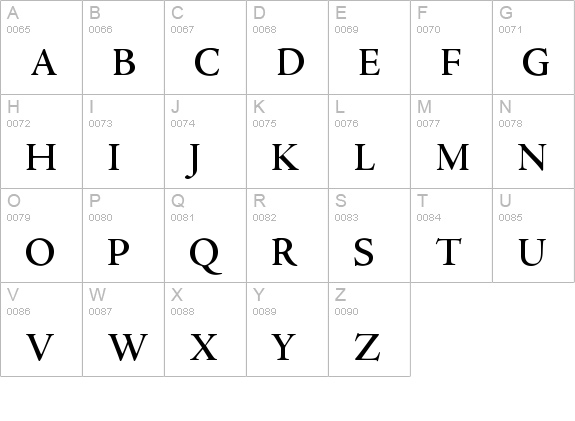
Adobe Jenson Pro Semibold Subhead Font Details
Adobe Jenson Pro Semibold Subhead is a sub-bold, structured variant in the Adobe typeface family \xE2\x80\x94 well suited to sub-headlines and emphasised passages.
Adobe Jenson Pro Semibold Subhead font is a bold and versatile typeface designed for attention-grabbing subheadings and titles. Its clean lines and strong presence make it perfect for emphasizing important information in your design projects. This font exudes a sense of sophistication and professionalism, making it ideal for editorial layouts, branding materials, and more. And the best part? Adobe Jenson Pro Semibold Subhead font is freely available to download at FontsMarket.com. Take advantage of this high-quality typeface to enhance your designs and make a lasting impression on your audience.